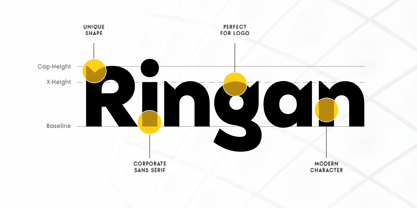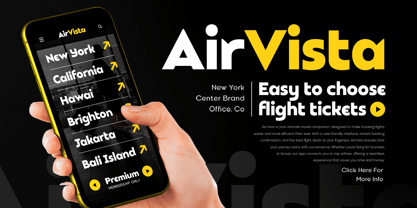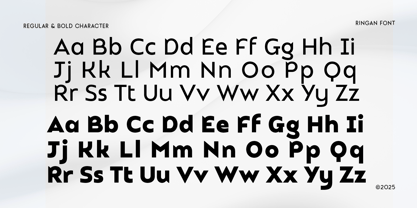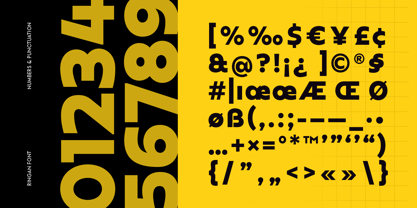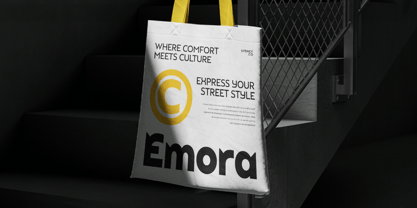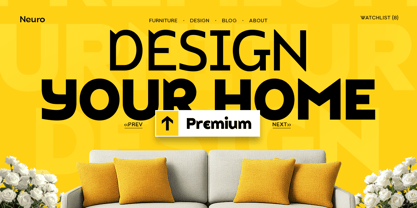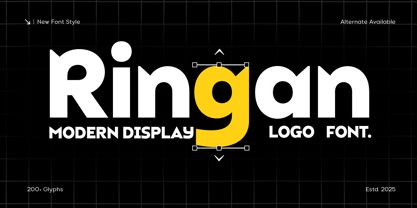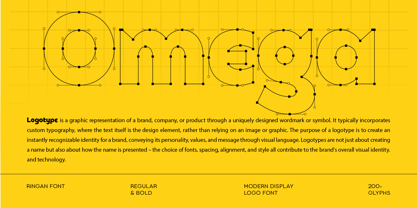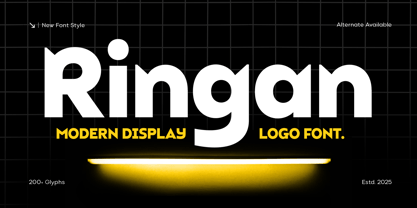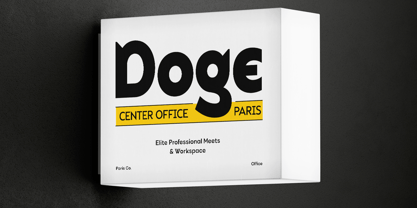
RINGAN is a modern display logo font crafted for designers who value simplicity, precision, and timeless appeal. With clean lines, smooth geometry, and refined balance, this typeface is ideal for branding, packaging, posters, and editorial compositions that need a fresh, modern look.
Its minimalist construction allows RINGAN to adapt effortlessly to a wide range of styles — from professional corporate branding to creative visual projects. Perfect for tech startups, fashion labels, or design studios, it delivers both clarity and sophistication in every letterform.
Whether used for headlines, logo marks, or digital layouts, RINGAN brings elegance and strength, making your design stand out with confidence and modern refinement.
Font Features
Clean and geometric sans serif design for modern branding
Perfect for logos, posters, packaging, and editorial projects
Minimal and balanced letterforms for elegant composition
Great readability for both print and digital design
Includes uppercase, lowercase, numerals, and punctuation
OpenType features for advanced typographic control
Multilingual Support For:
Supports a wide range of languages including Afrikaans, Albanian, Asu, Basque, Bemba, Bena, Breton, Chiga, Cornish, Dutch, English, Estonian, Filipino, Finnish, Friulian, Galician, German, Gusii, Indonesian, Irish, Italian, Kabuverdianu, Kalenjin, Kinyarwanda, Luo, Luxembourgish, Luyia, Machame, Makhuwa-Meetto, Makonde, Malagasy, Manx, Morisyen, North Ndebele, Nyankole, Oromo, Portuguese, Quechua, Romansh, Rombo, Rundi, Rwa, Samburu, Sango, Sangu, Scottish Gaelic, Sena, Shambala, Shona, Soga, Somali, Spanish, Swahili, Swedish, Swiss, and more.
Design with precision and elegance using RINGAN – the ultimate modern display font for clean, creative, and professional branding. ✨